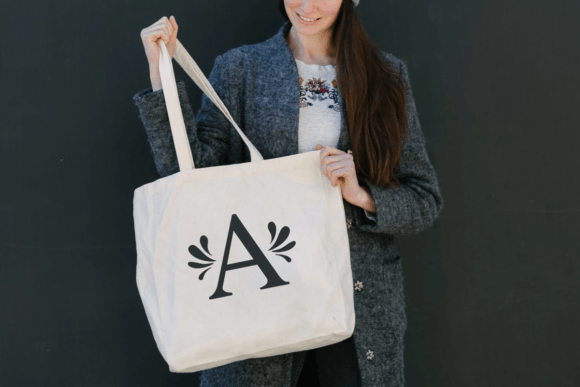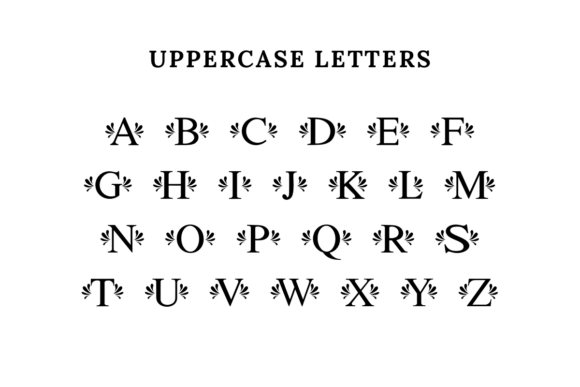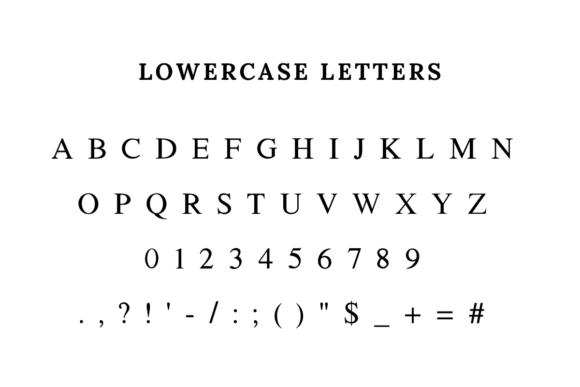
Introduction to Mystic Monogram Font
As a designer, have you ever been working on a creative project, and you just can’t seem to find the perfect font to match your vision? The search can be overwhelming, especially when you’re aiming for a high-end look. That’s when I stumbled upon the Mystic Monogram Font, and I knew I had found a design resource that would elevate my work to the next level.
This elegant font is more than just a pretty face – it’s a valuable tool for designers looking to add a touch of sophistication to their projects. With its classical serif charm and artistic flourish, the Mystic Monogram Font is perfect for monogramming, branding, and upscale packaging.
Key Features of Mystic Monogram Font
- Comes with a large character set, including uppercase and lowercase letters, numbers, and punctuation marks
Honest Review: Mystic Monogram Font
I recently stumbled upon the Mystic Monogram Font, and I must say it’s been a great addition to my design resource collection. The high quality of the font is immediately noticeable, making it perfect for any creative project that requires a touch of elegance.
- High quality design that exudes elegance and sophistication
- Limited character set, which may be a concern for designers who need a wide range of characters
- No bold or italic font options, which may limit its use in certain design scenarios
Overall, the Mystic Monogram Font is a solid choice for designers looking for a high-quality, elegant font. While it may have some limitations, its free download option and transparent background make it a great addition to any design resource collection. ✨
How to Use Mystic Monogram Font
The Mystic Monogram Font is a high-quality, free download perfect for any creative project. Its unique design makes it ideal for adding a touch of mysticism to your designs.
Use the Mystic Monogram Font on a transparent background to create a sense of depth and mystery. Experiment with different font sizes and colors to add visual interest to your design. You can also combine the font with other design elements to create a unique and eye-catching visual effect.
The Mystic Monogram Font is perfect for:
- Designing mystical or spiritual-themed projects
- Creating invitations or greeting cards for special occasions
- Adding a touch of elegance to your branding or logo
- Designing posters or flyers for events or promotions